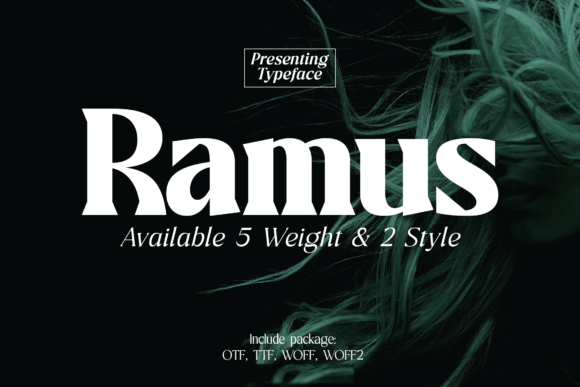
Step into the world of Ramus, a font family that embodies sophistication and timeless beauty. Exuding elegance with every curve and line, Ramus is the ultimate choice for those seeking a touch of refinement in their designs.
Embrace the allure of minimalism with Ramus, a serif font that captivates with its clean and uncluttered style. Its delicate strokes dance across the page, creating a visual symphony that is both understated and captivating.
Unleash your creativity with Ramus, a versatile font that adapts seamlessly to various design projects. From chic logos and eye-catching headlines to sophisticated marketing materials and elegant invitations, Ramus adds a touch of class to any endeavor.
Elevate your digital presence with Ramus, the perfect font for crafting striking website designs. Its crisp and legible characters ensure optimal readability, while its graceful design adds a touch of sophistication that sets your website apart.
Transport your readers to a bygone era with Ramus, the ideal font for creating stunning editorial designs. Its timeless charm adds a touch of nostalgia to magazines, newspapers, and brochures, captivating readers with its refined aesthetic.
Experience the allure of Ramus, a font family that transforms your creative visions into tangible masterpieces. Its versatility, elegance, and timeless beauty make it the perfect choice for designers seeking to create designs that resonate with audiences.